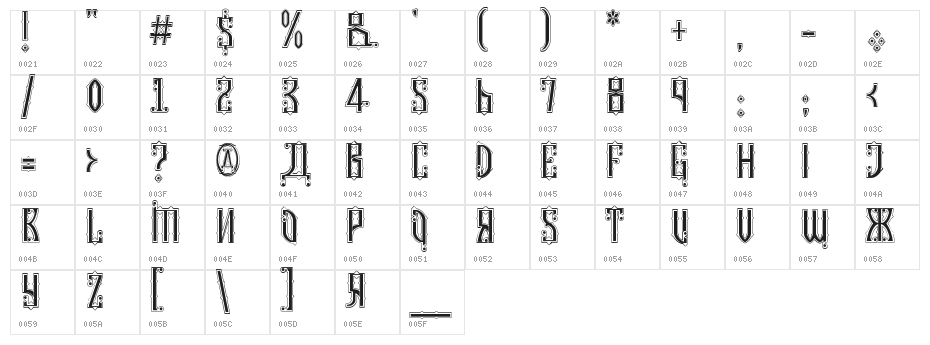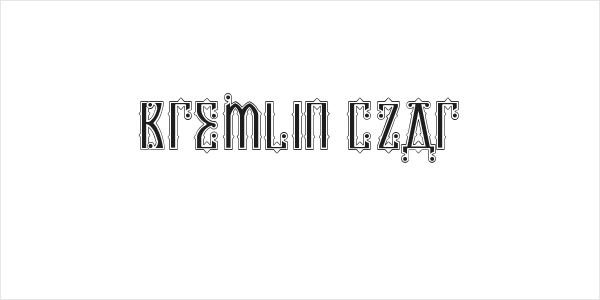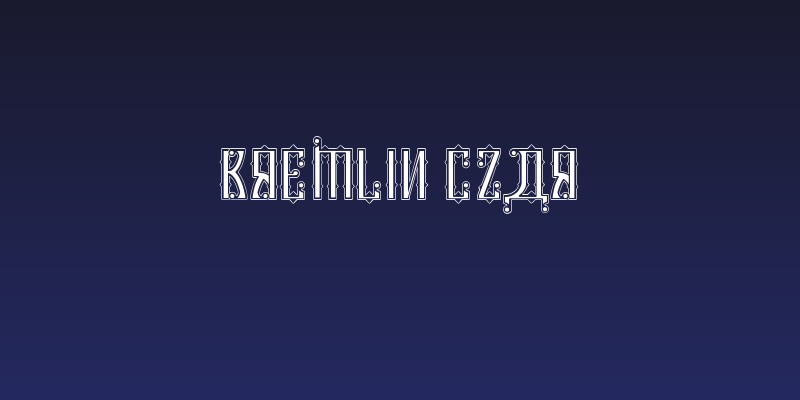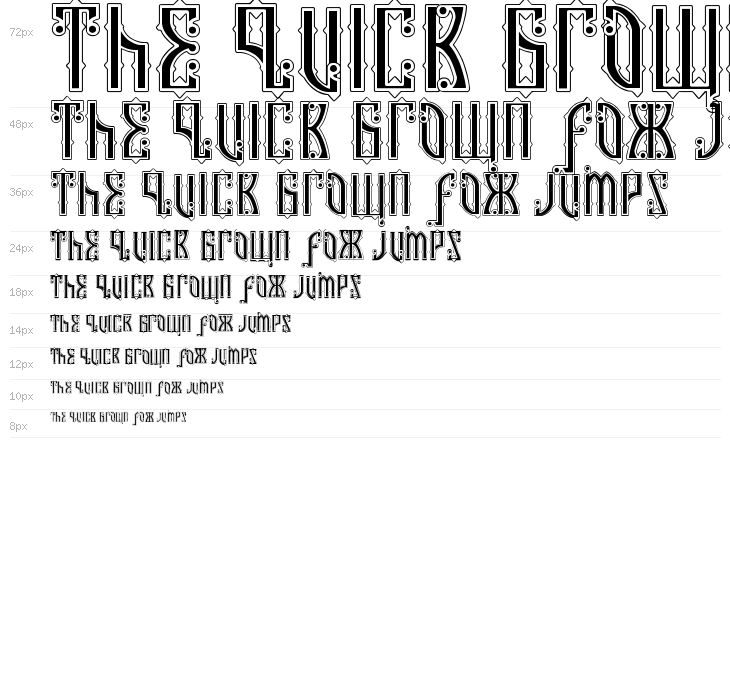
Kremlin Czar Font
Kremlin Czar Description
This font features a highly decorative and intricate design, reminiscent of traditional Eastern European or Russian architectural motifs. Each character is adorned with ornate details, including star-like embellishments and sharp, angular serifs that give it a distinct, historical feel. The uppercase and lowercase letters maintain a consistent style, with bold outlines and a sense of grandeur. The numbers and special characters are equally elaborate, ensuring a cohesive look across all elements. This font is ideal for projects that require a touch of elegance and historical flair, making it perfect for themed events, posters, or branding that seeks to evoke a sense of tradition and opulence.